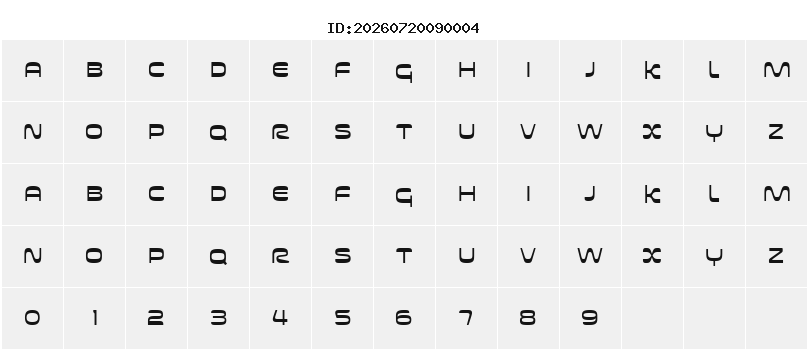
• Font Name: Futurespore
• Designer: Andrew Young
About Futurespore.ttf
Futurespore.ttf is a modern, elegant sans-serif font designed for ultimate readability and visual harmony. Perfect for branding, headlines, web design, and print materials.